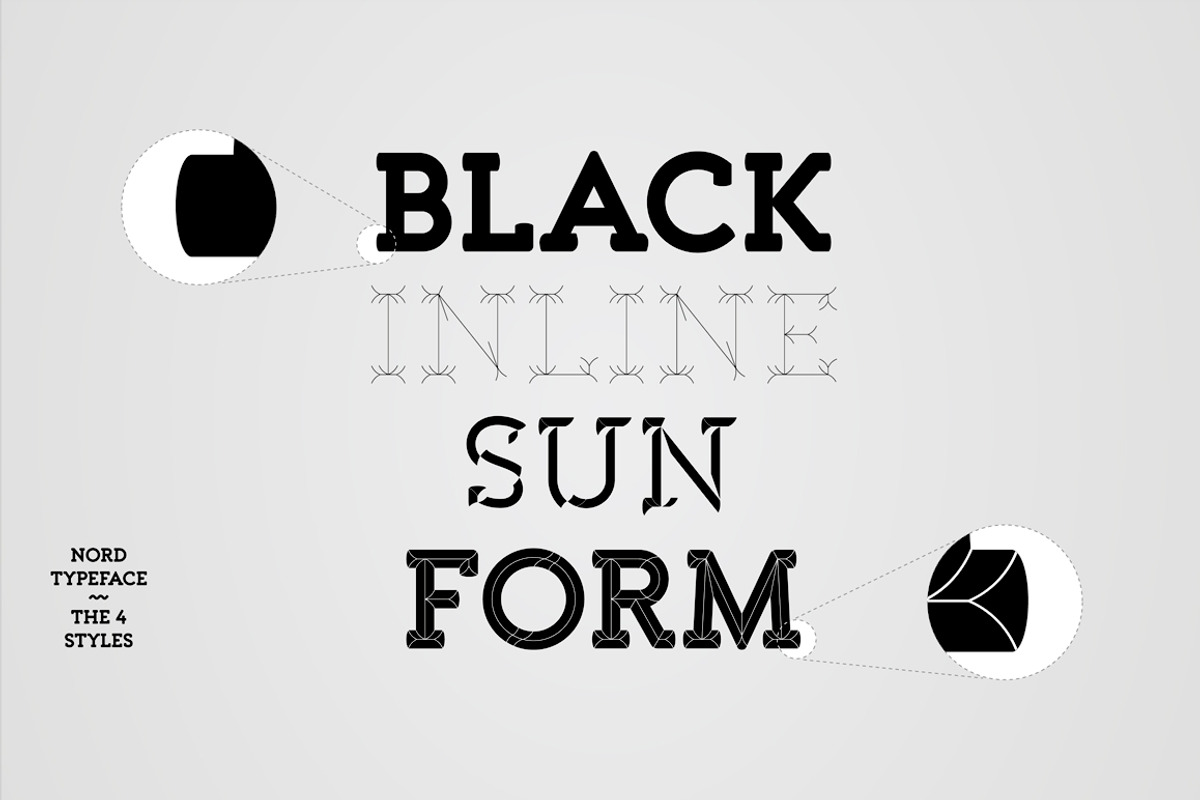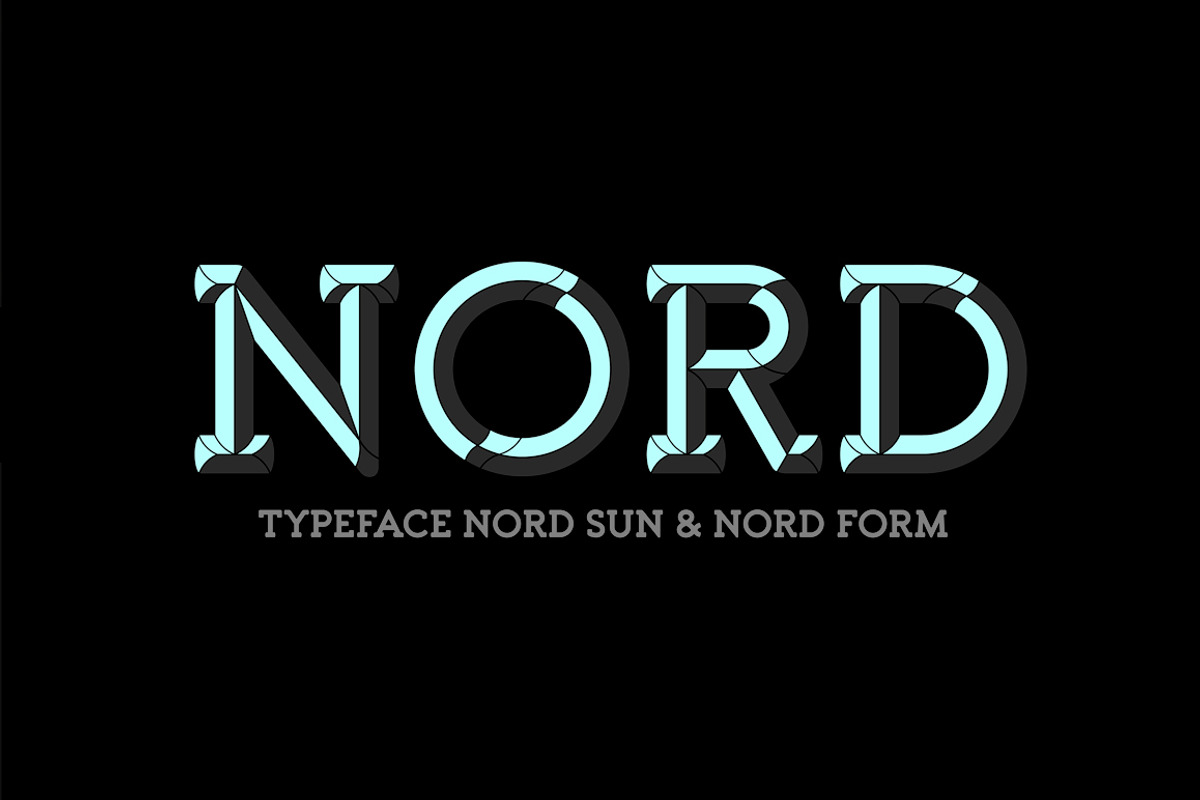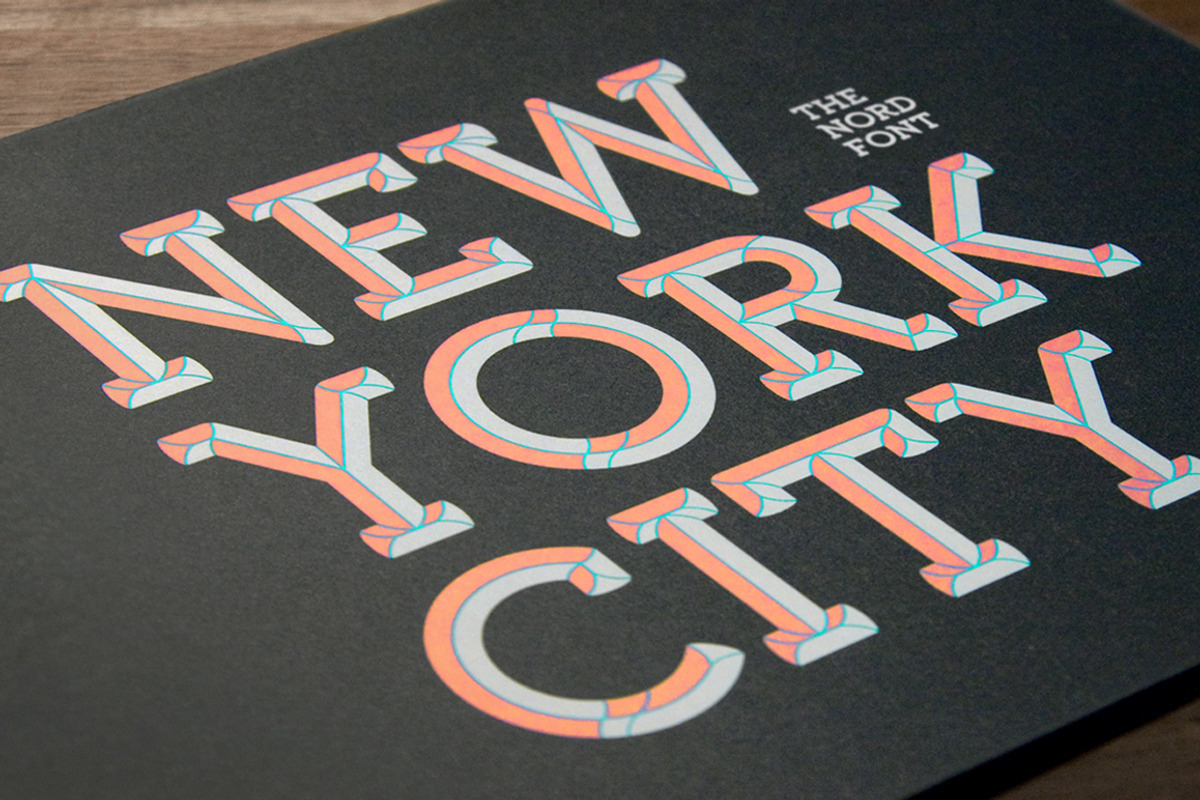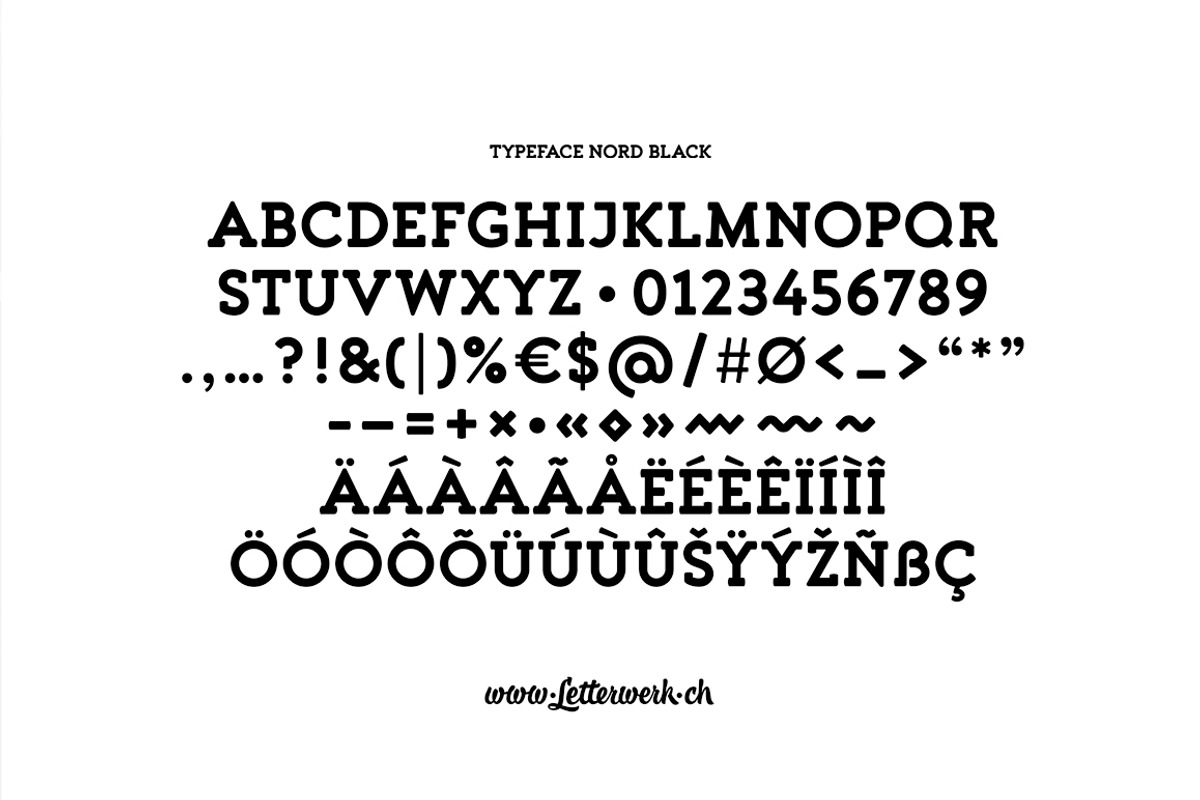
Nord Typeface
Nord Typeface by Letterwerk is a font selected for branding, posters, packaging, typography.
Why Nord Typeface is worth a look
Nord Typeface by Letterwerk fits naturally into Branding, posters, packaging, typography.